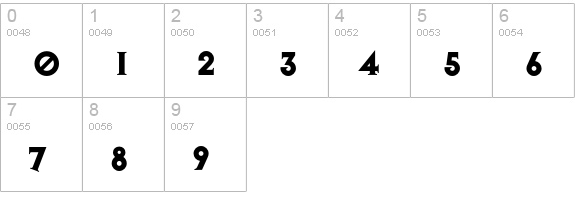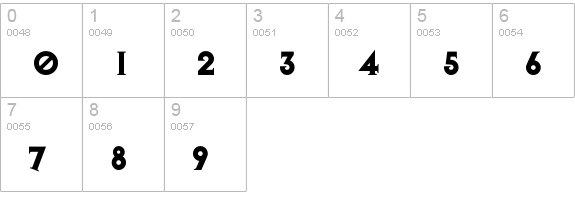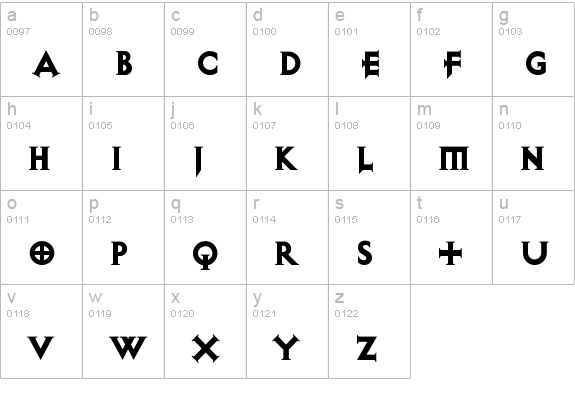
ExocetHeavy Font Details
ExocetHeavy font is a bold and eye-catching typeface that exudes power and strength. Its thick, heavy strokes make a bold statement and demand attention. Perfect for headlines, titles, and branding projects, ExocetHeavy adds a touch of modernity and edge to any design. What sets ExocetHeavy apart is not only its striking appearance but also its accessibility. This versatile font is available for free download at FontsMarket.com, making it a valuable addition to any designer's toolkit. Whether you're looking to make a bold statement or create a visually impactful design, ExocetHeavy has got you covered. Download it today and unleash its bold potential in your next project.